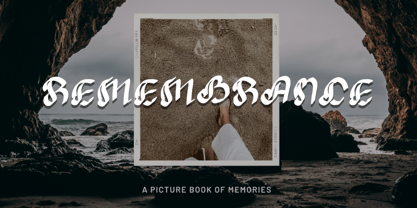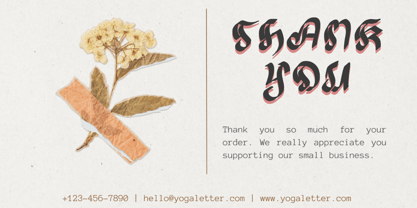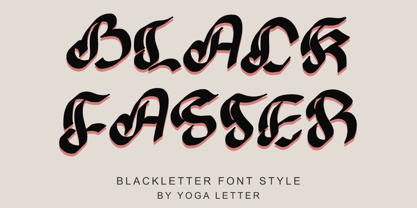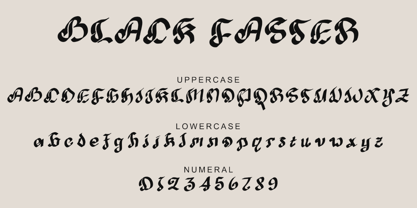
Black Faster
by Yoga Letter
The Black Faster Font Family was designed by Isroni Yoga Prasetya and published by Yoga Letter. Black Faster contains 1 styles. More about this family
"Black Faster" is a unique and elegant blackletter font. This font is equipped with uppercase, lowercase, numeral, punctuations and multilingual support. Very suitable for banners, posters, prints, tattoos, branding, summer, spring, mother's day, st patrick's day, easter and others.
Designers: Isroni Yoga Prasetya
Foundry: Yoga Letter